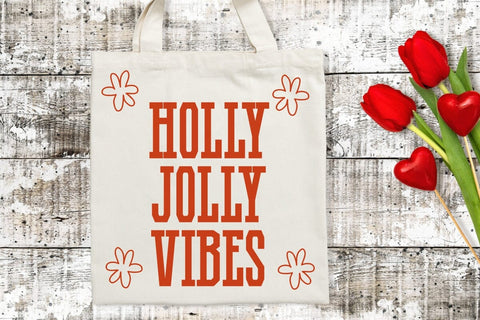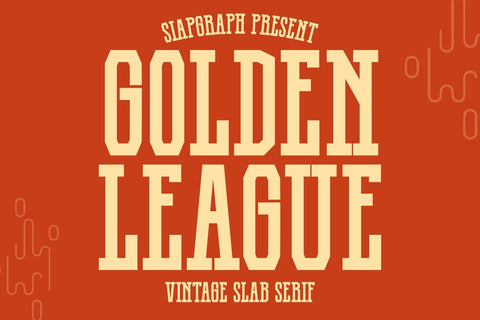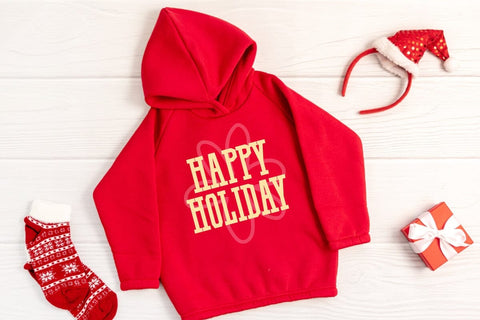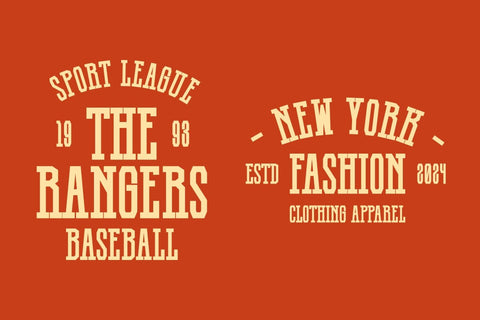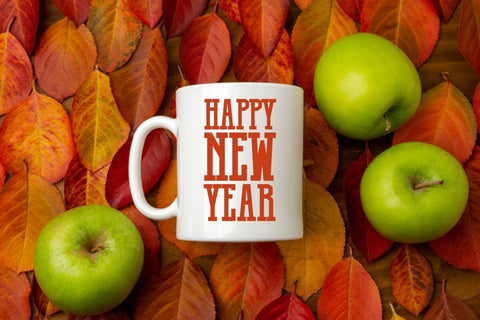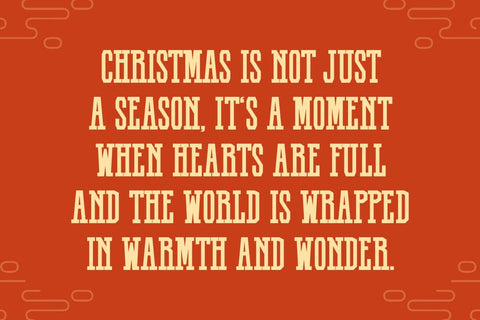
Golden League - Vintage Slab Serif Font
Golden League is a clean and bold vintage slab serif font inspired by modern design with a festive Christmas twist. Perfect for creating eye-catching quotes, posters, apparel mockups, and merchandise like mugs and tote bags, Golden League combines timeless style with holiday charm, making it a versatile choice for all your seasonal and creative projects.